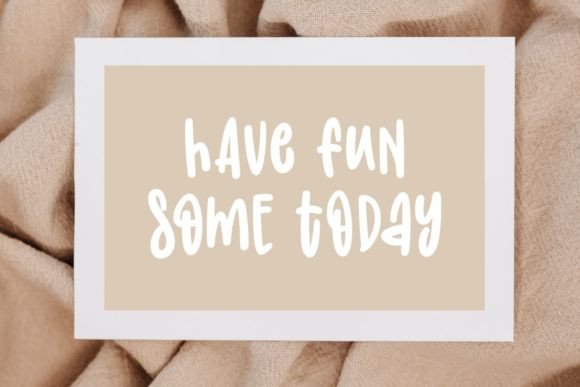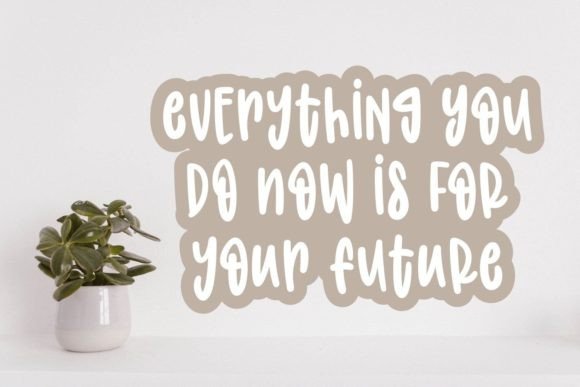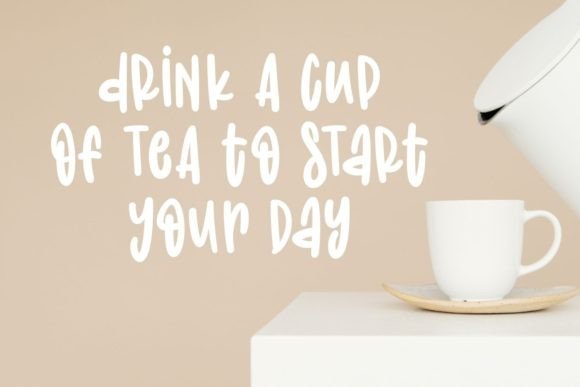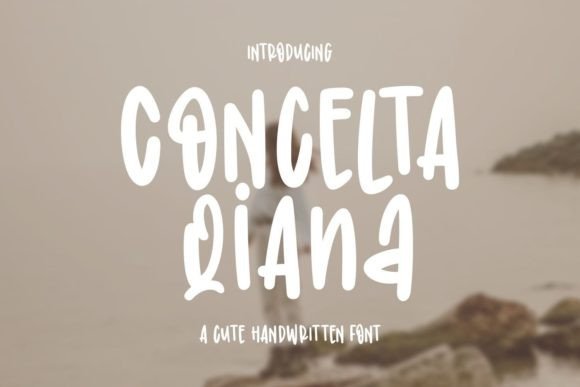
Introducing Concelta Qiana Font: The Perfect Addition to Your Design Projects
Are you tired of using the same old fonts in your design projects? Do you want to add a touch of whimsy and playfulness to your creations? Look no further than Concelta Qiana Font, a cute and lovely handwritten font that’s sure to brighten up each of your designs.
What is Concelta Qiana Font?
Concelta Qiana Font is a unique and charming handwritten font that’s perfect for designers and crafters looking to add a personal touch to their projects. With its whimsical and playful style, this font is sure to capture the attention of your audience and leave a lasting impression.
Key Features of Concelta Qiana Font
• Cute and Lovely Design: Concelta Qiana Font features a cute and lovely design that’s perfect for a variety of design projects, from invitations and greeting cards to posters and social media graphics.
• Whimsical and Playful Style: This font’s whimsical and playful style is sure to add a touch of fun and personality to your designs.
• Handwritten Look: Concelta Qiana Font has a beautiful handwritten look that’s perfect for creating unique and personalized designs.
• Easily Readable: Despite its playful style, Concelta Qiana Font is easily readable, making it perfect for use in a variety of design projects.
Uses for Concelta Qiana Font
Concelta Qiana Font is a versatile font that can be used in a variety of design projects, including:
• Invitations and Greeting Cards: Add a personal touch to your invitations and greeting cards with Concelta Qiana Font.
• Posters and Flyers: Use Concelta Qiana Font to create eye-catching posters and flyers that are sure to grab attention.
• Social Media Graphics: Add a touch of whimsy to your social media graphics with Concelta Qiana Font.
• Crafting Projects: Concelta Qiana Font is perfect for use in crafting projects, such as scrapbooking and journaling.
Why Choose Concelta Qiana Font?
There are many reasons why Concelta Qiana Font is a great choice for designers and crafters, including:
• Unique and Charming Design: Concelta Qiana Font features a unique and charming design that’s sure to set your designs apart.
• High-Quality Design: Concelta Qiana Font is a high-quality design that’s perfect for use in professional design projects.
Concelta Qiana Font is a cute and lovely handwritten font that’s perfect for designers and crafters looking to add a touch of whimsy and playfulness to their designs. With its unique and charming design, easily readable style, and versatility, this font is sure to become a favorite in your design arsenal. So why wait? Download Concelta Qiana Font today and start creating unique and personalized designs that are sure to capture the attention of your audience.